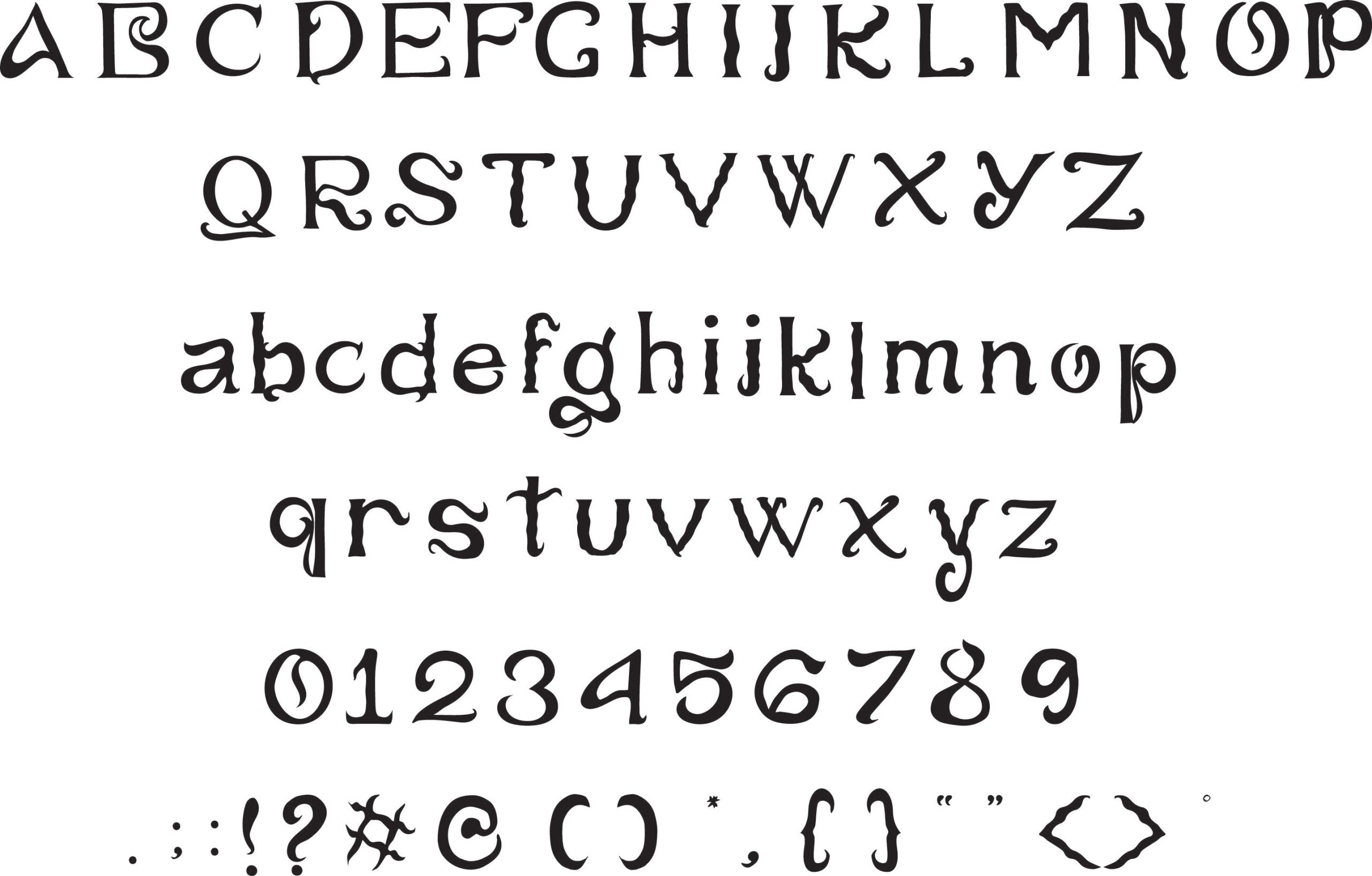
this font inspired by Keris Yogyakarta in Indonesia
Looking for the perfect font for your designs? Keriyog is what you need, this typeface is the favorite choice of designers. Whether you're creating a stylish logo or a beautiful brochure, this font is sure to make your designs stand out from the crowd.